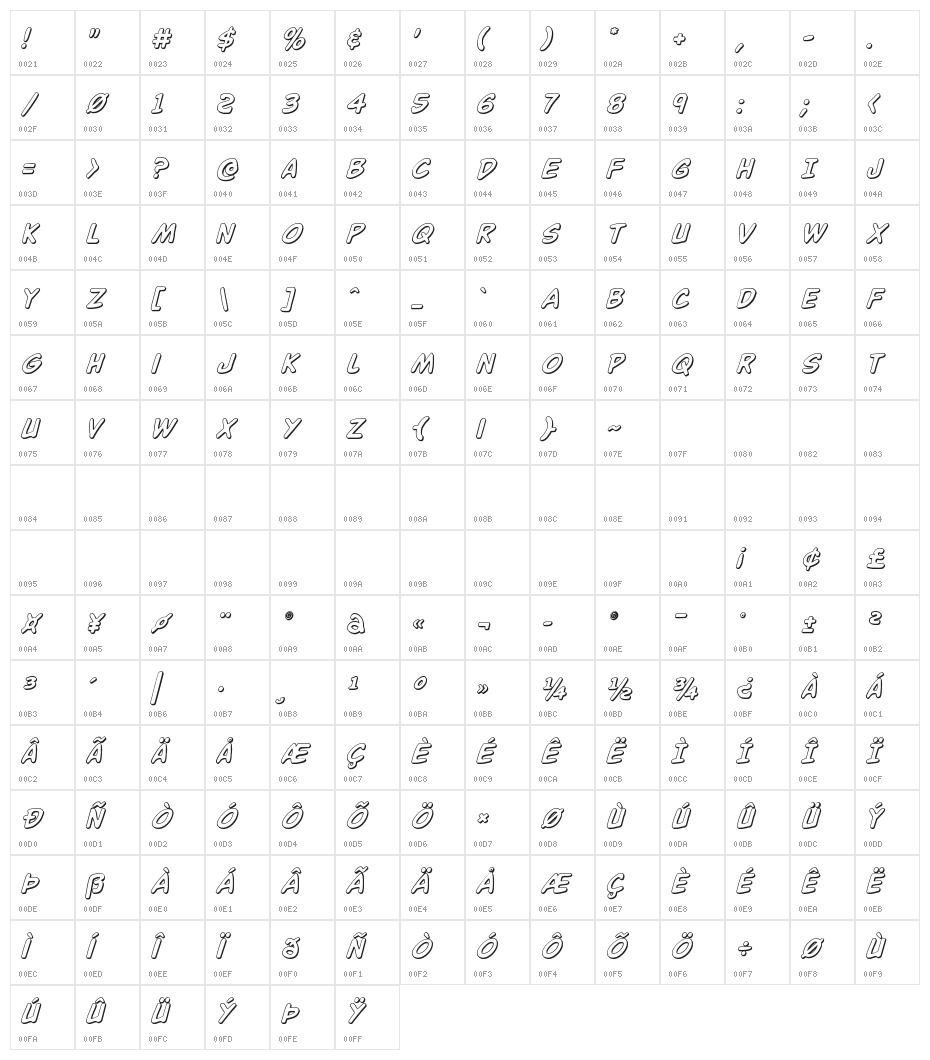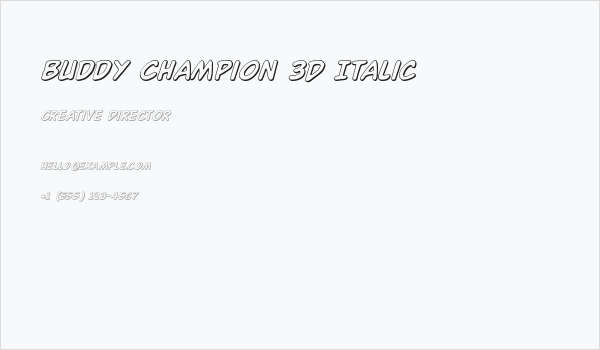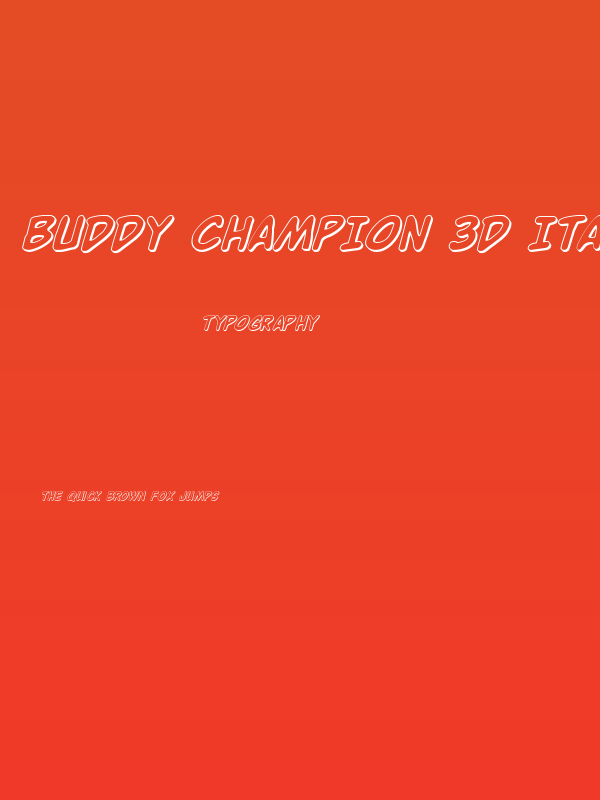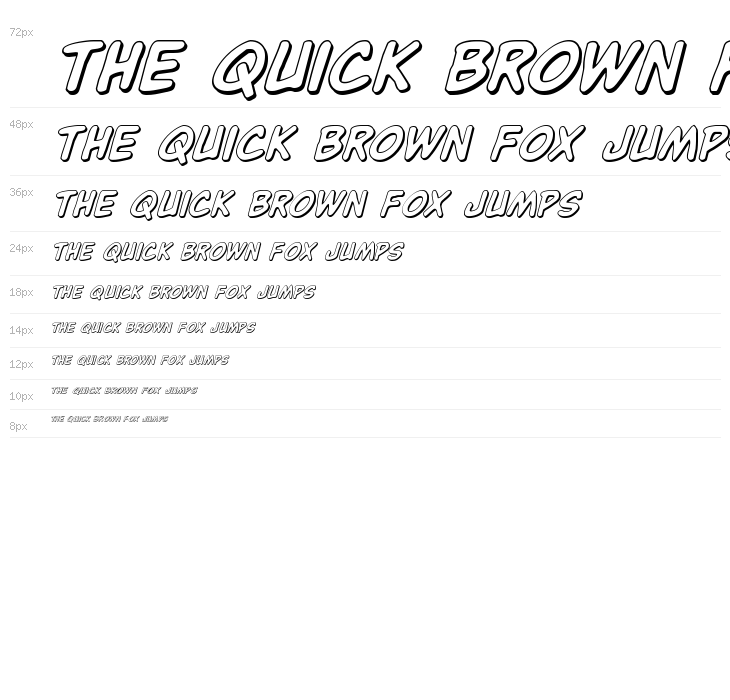
Buddy Champion 3D Italic Font
Buddy Champion 3D Italic Description
This font features a playful and bold 3D effect with italicized characters, giving it a dynamic and energetic appearance. The letters are outlined, creating a sense of depth and movement. The style is consistent across uppercase and lowercase letters, as well as numbers and special characters. The font's design is eye-catching, making it suitable for projects that require a fun and engaging look. Its boldness and 3D effect make it stand out, while the italic slant adds a touch of motion and flair.
| Overall Style | Playful, Dynamic, Modern |
| Proposed Projects | Ideal for children's book covers, playful branding, event posters, and any project needing a lively and engaging typeface. |